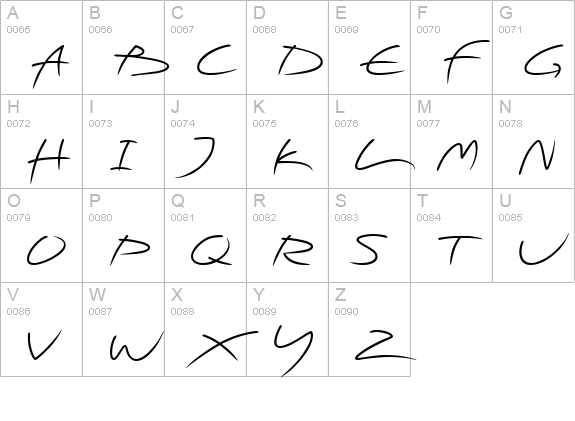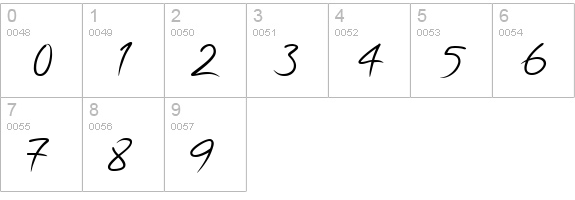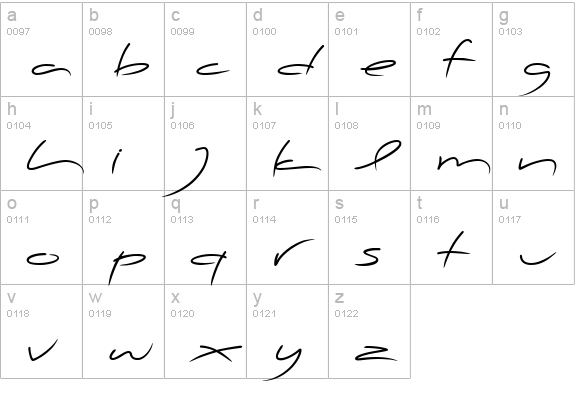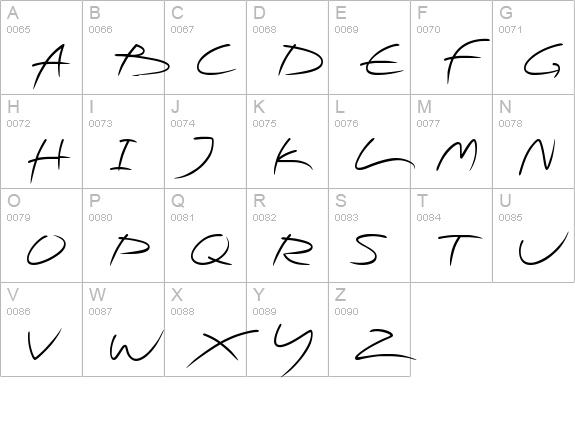
PFScandalPro-Display Font Details
Introducing PFScandalPro-Display, a bold and eye-catching font that exudes elegance and sophistication. This font is perfect for making a statement in headlines, posters, branding, and more. With its sleek and modern design, PFScandalPro-Display is sure to capture attention and leave a lasting impression. Best of all, PFScandalPro-Display is available for free download at FontsMarket.com. Now you can elevate your designs with this premium font without breaking the bank. Don't miss out on the opportunity to add PFScandalPro-Display to your font collection today and take your projects to the next level.